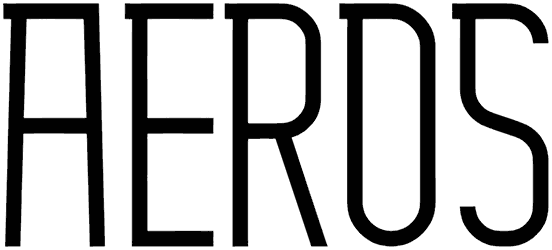
Aeros Font
Get involved in Aeros, a memorable gift from RB premium for any creative designers who need to create special displays. This condensed font with a delicate alphabet gives you a comfy sense of design and invention with no worry.
Aeros is an elegant, neat, modern and retro themed display font.
Aeros is perfect for posters, t-shirts, book covers, packaging, stickers, quotes and all designs that require modern and retro neat elements.